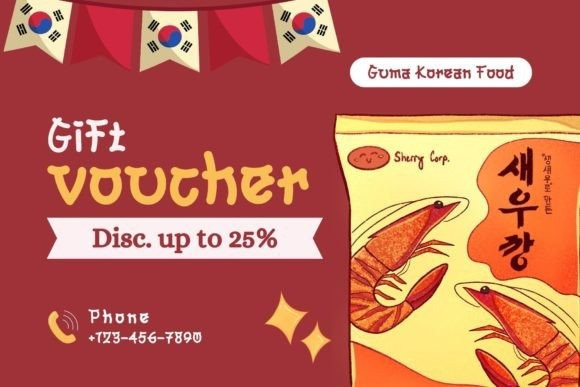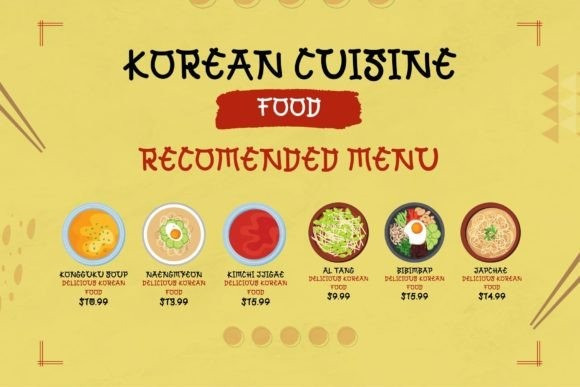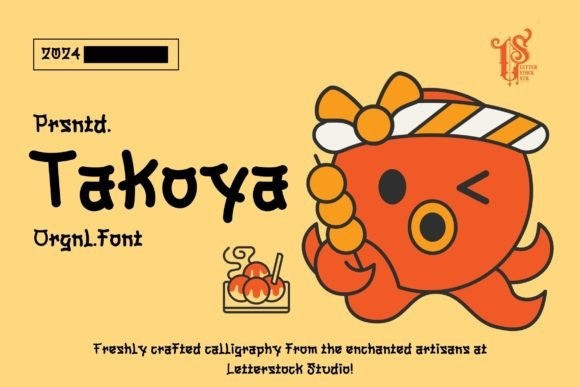
Takoya Font
Takoya Font a font meticulously crafted with original hand-drawn artistry and infused with the elegant essence of Korean typography. Perfect for adding a touch of sophistication to your projects, this font is ideal for posters, invitations, and branding materials, exuding a timeless charm that resonates with the beauty of Korean script.